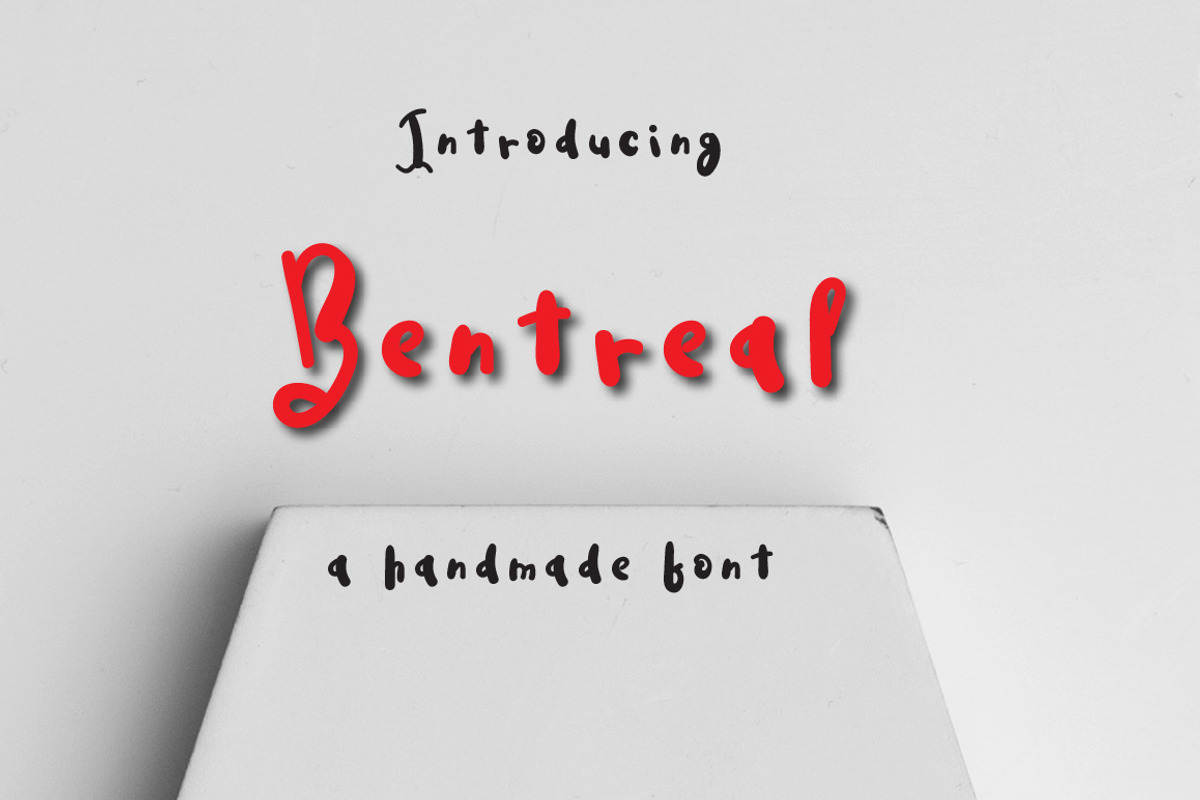
Bentreal Typeface
Bentreal typeface has been carefully crafted to make your text look beautiful. With modern style this font is perfect for many different project ex: quotes, blog header, poster, wedding, branding, logo, fashion, apparel, letter, invitation, stationery, etc. FEATURES:Bentreal (OTF) Thanks for looking.